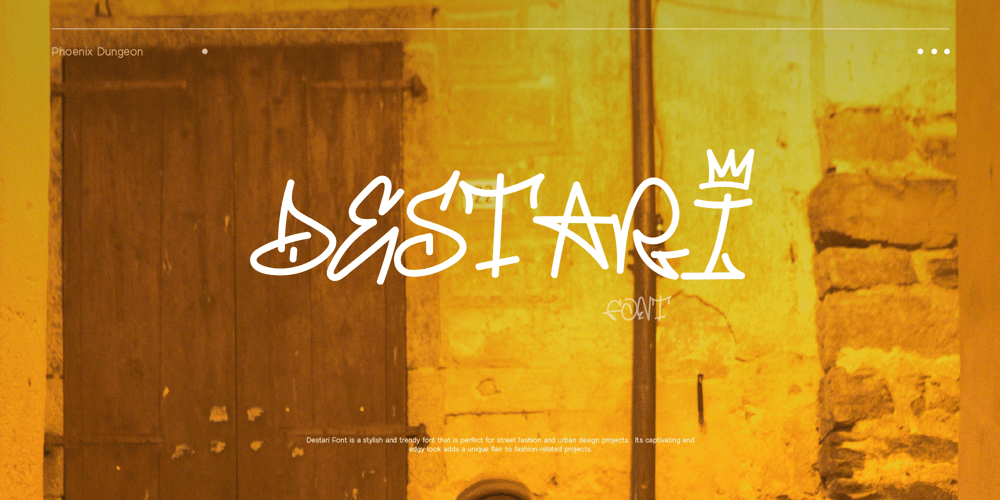
Destari Font Family was designed by Alif Naufal Muzakki and published by Phoenix Group. Destari contains 1 styles and family package options. Destari Font is a stylish and trendy font that is perfect for street fashion and urban design projects. . Its captivating and edgy look adds a unique flair to fashion-related projects.